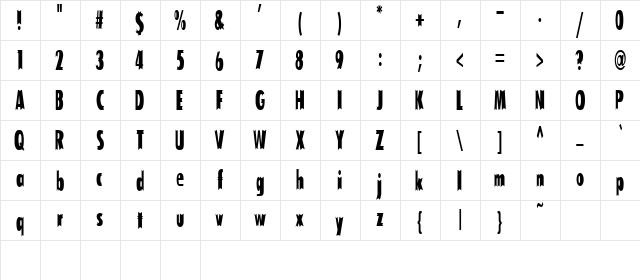
Tofu Cond
Design Context for Tofu Typeface
Tofu offers clean, dependable letterforms without strong stylistic allegiance, making it a practical choice for designers who need flexibility. The condensed width makes it efficient for tight spaces without sacrificing legibility.